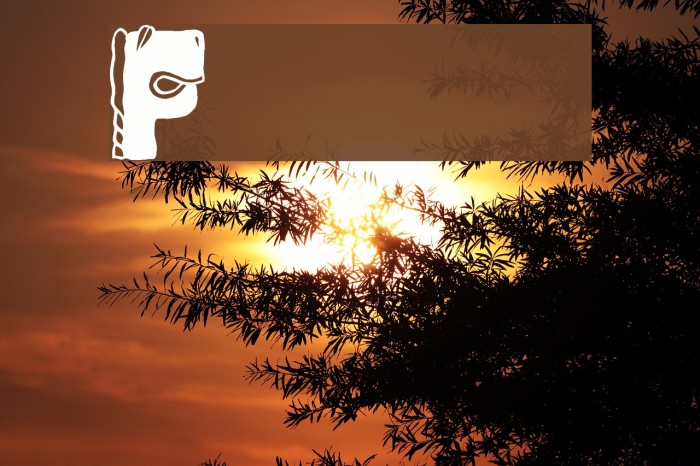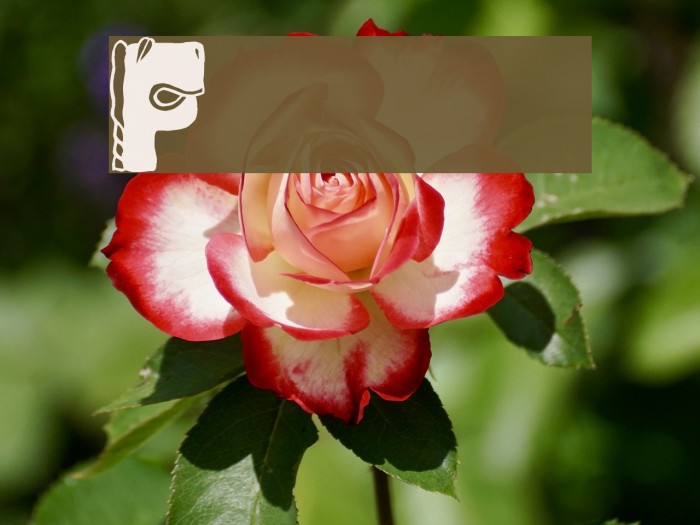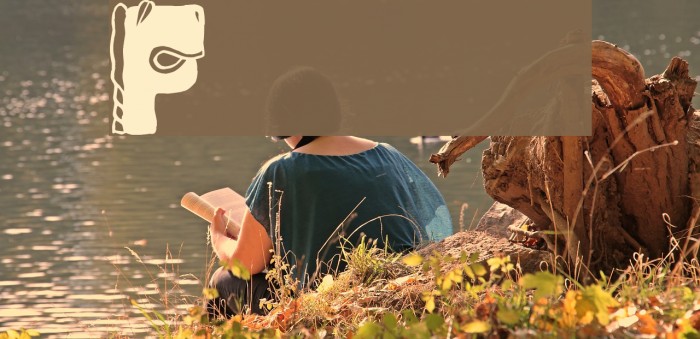
Facelook Font
This playful and whimsical font features a unique design where each letter is creatively integrated with various facial expressions and elements. The characters are bold and eye-catching, with intricate details that give each letter a distinct personality. The font is highly decorative, making it ideal for projects that require a fun and engaging visual style. Its artistic flair and imaginative design make it stand out, perfect for capturing attention and adding a touch of humor and creativity to any text.
A playful, decorative font with letters featuring unique facial elements.
- Proposed Projects: Ideal for children's books, comic titles, playful branding, and creative posters.
- Overall Style: Whimsical, Playful